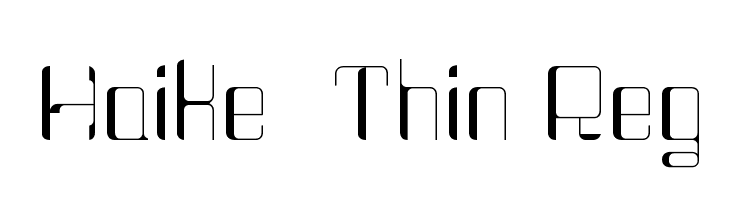
A modern, geometric font with a futuristic and structured design.
A sleek, modern font with thin, elongated characters and a futuristic style.
A modern, geometric font with thin, sleek lines and minimalist design.